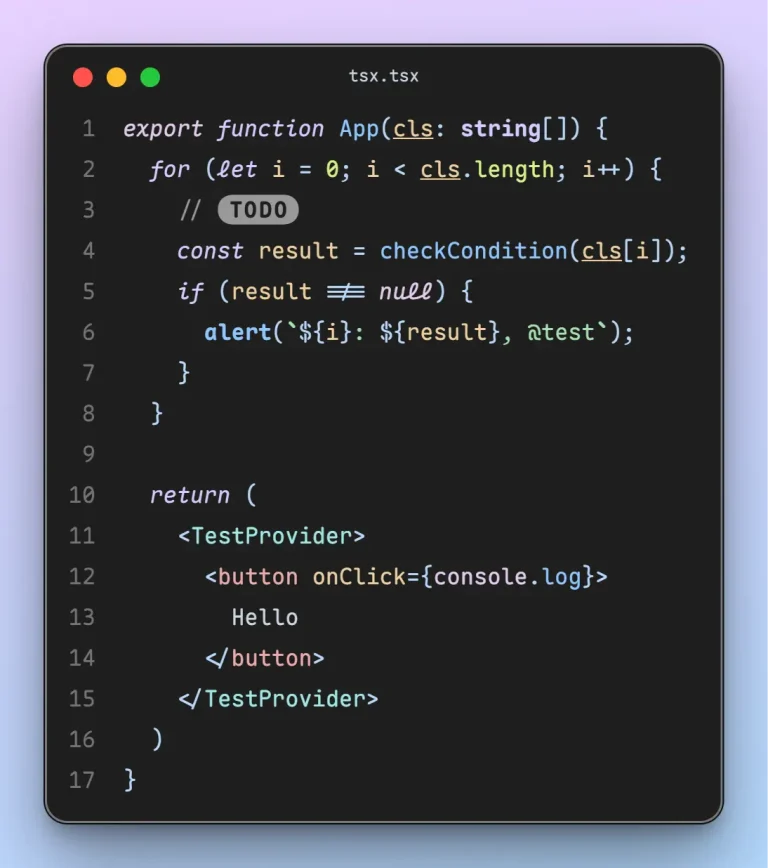
Server Mono typeface combines traditional monospace characteristics with modern design sensibilities. This font draws inspiration from typewriters, Apple’s San Francisco Mono, ASCII art, and command-line interfaces. The typeface maintains consistent character width and clear readability across different display environments. The SIL Open Font License 1.1 makes it accessible for various design projects.